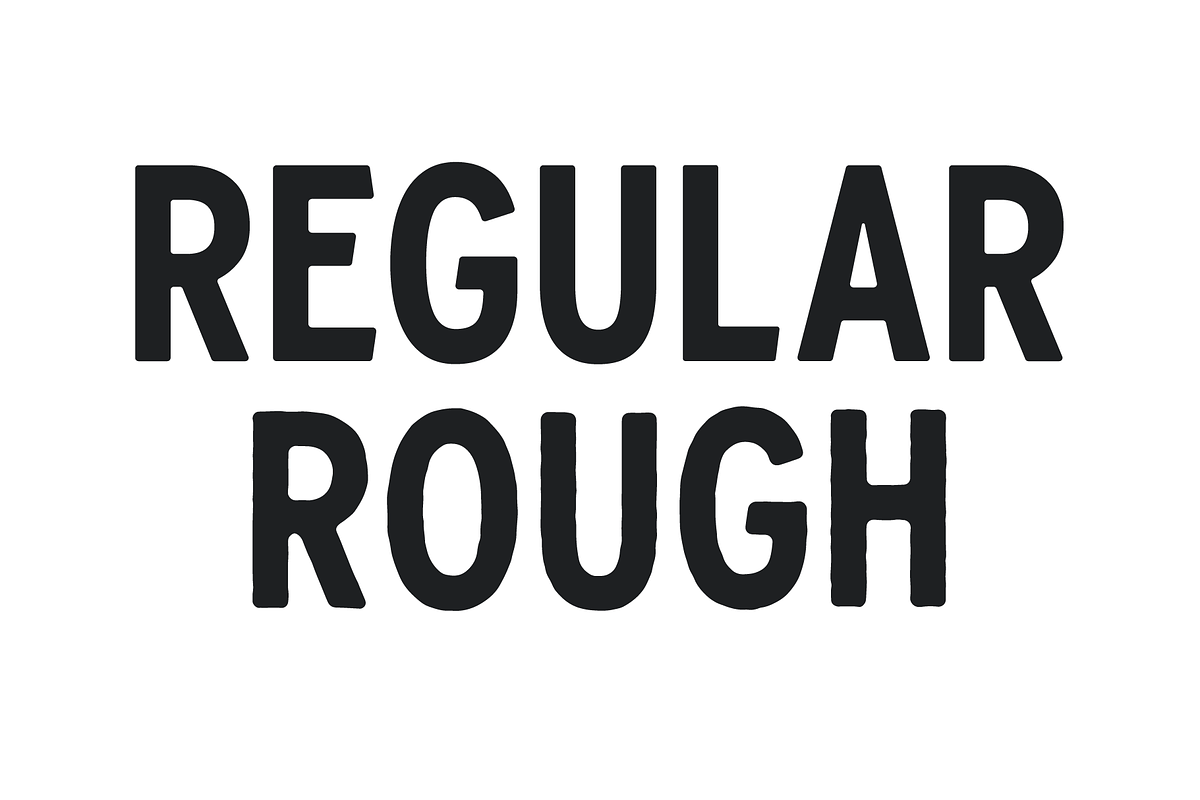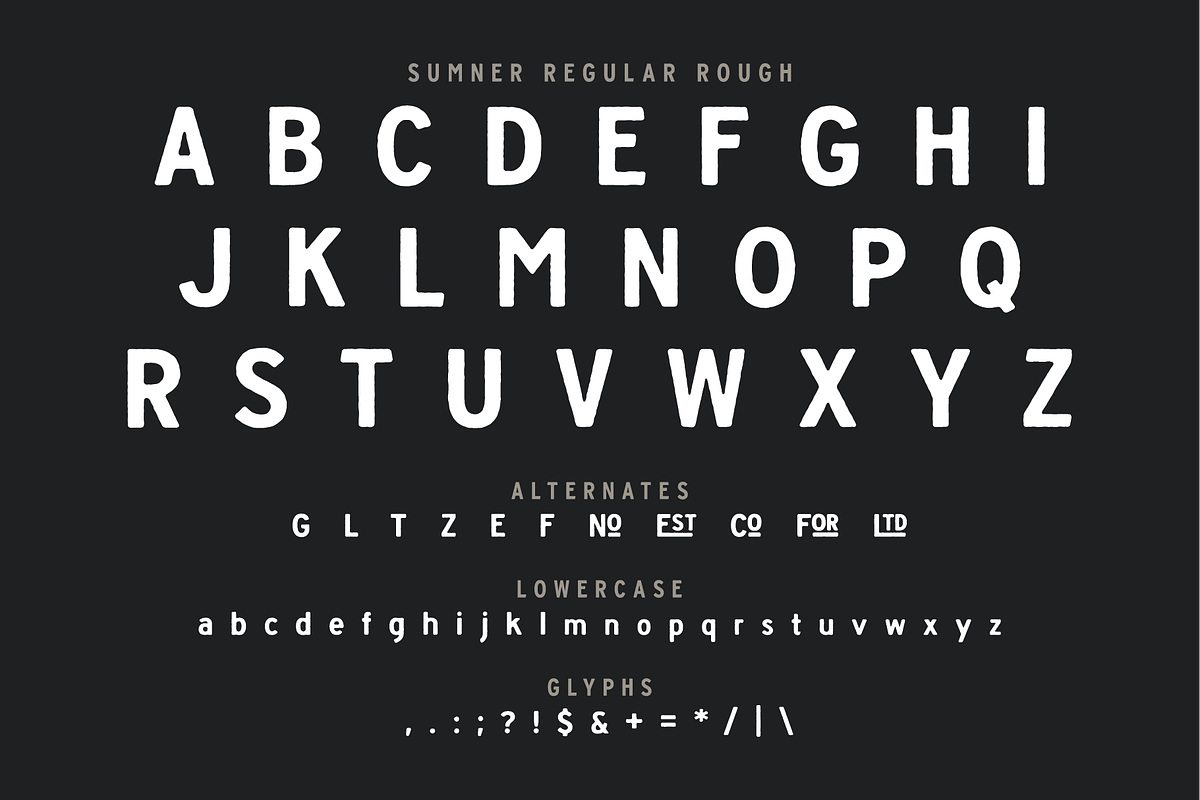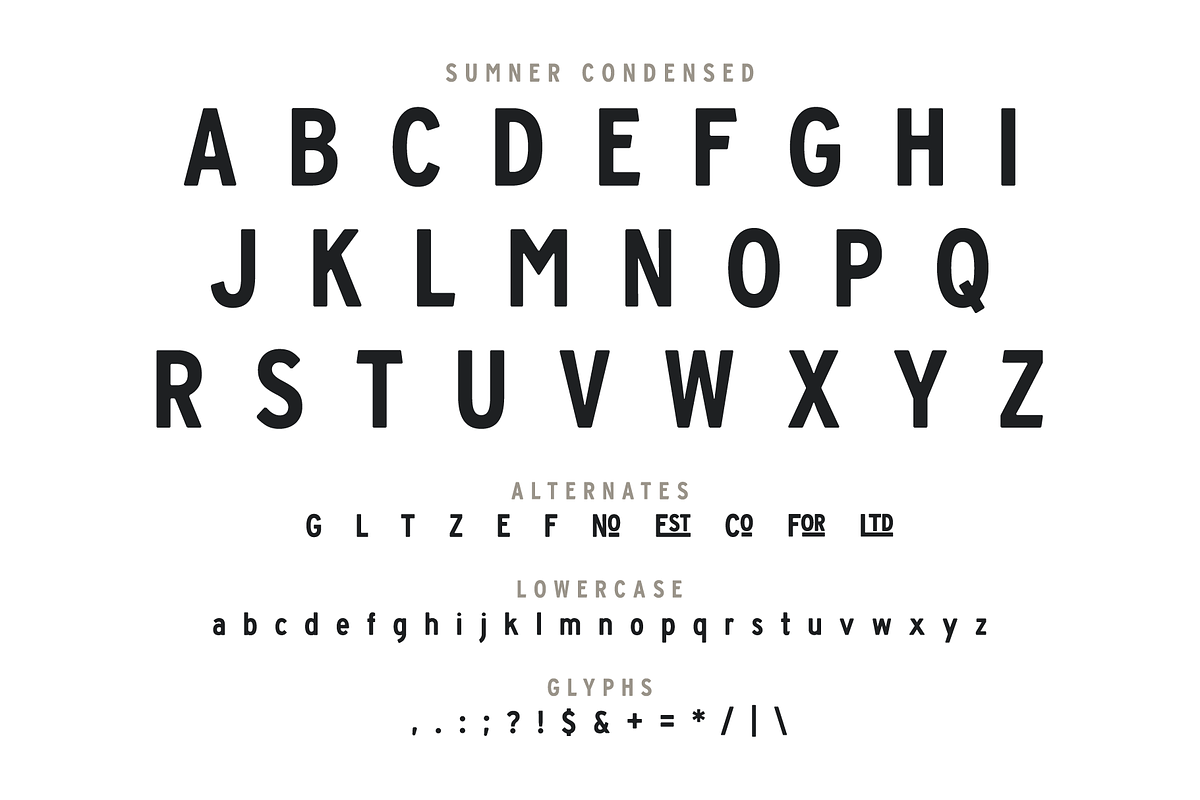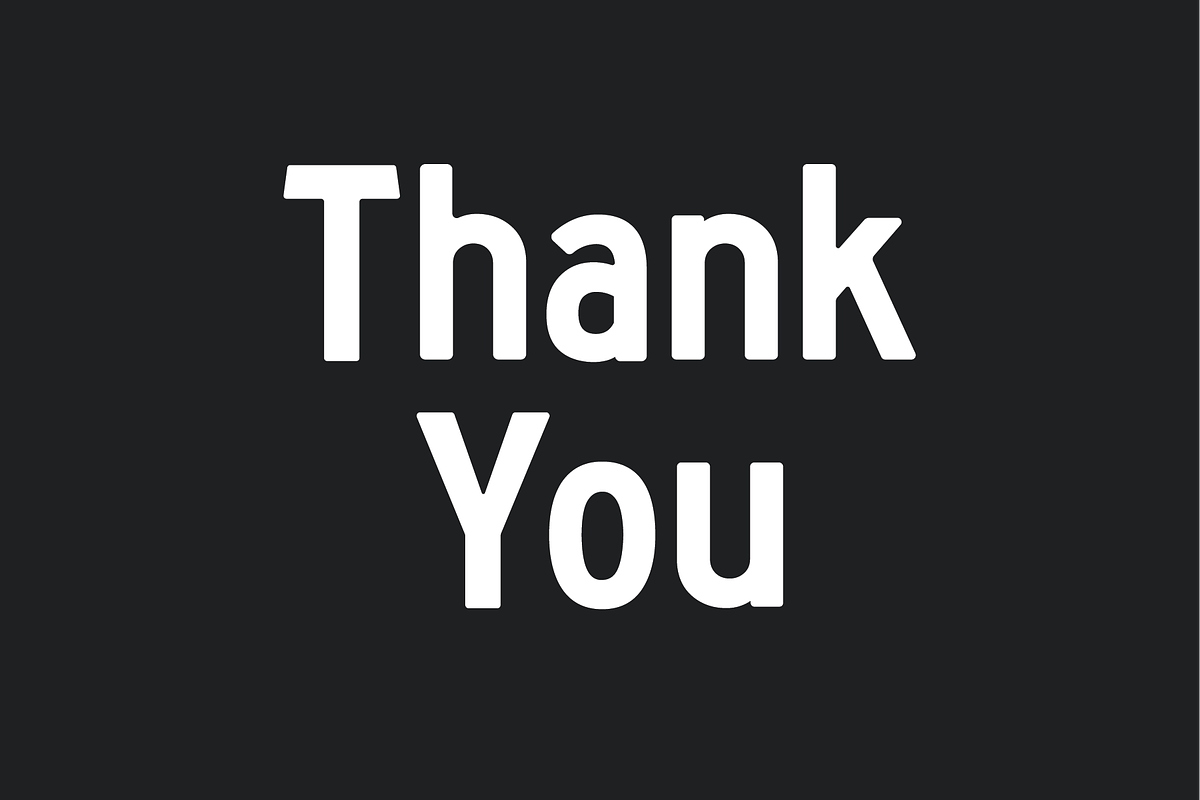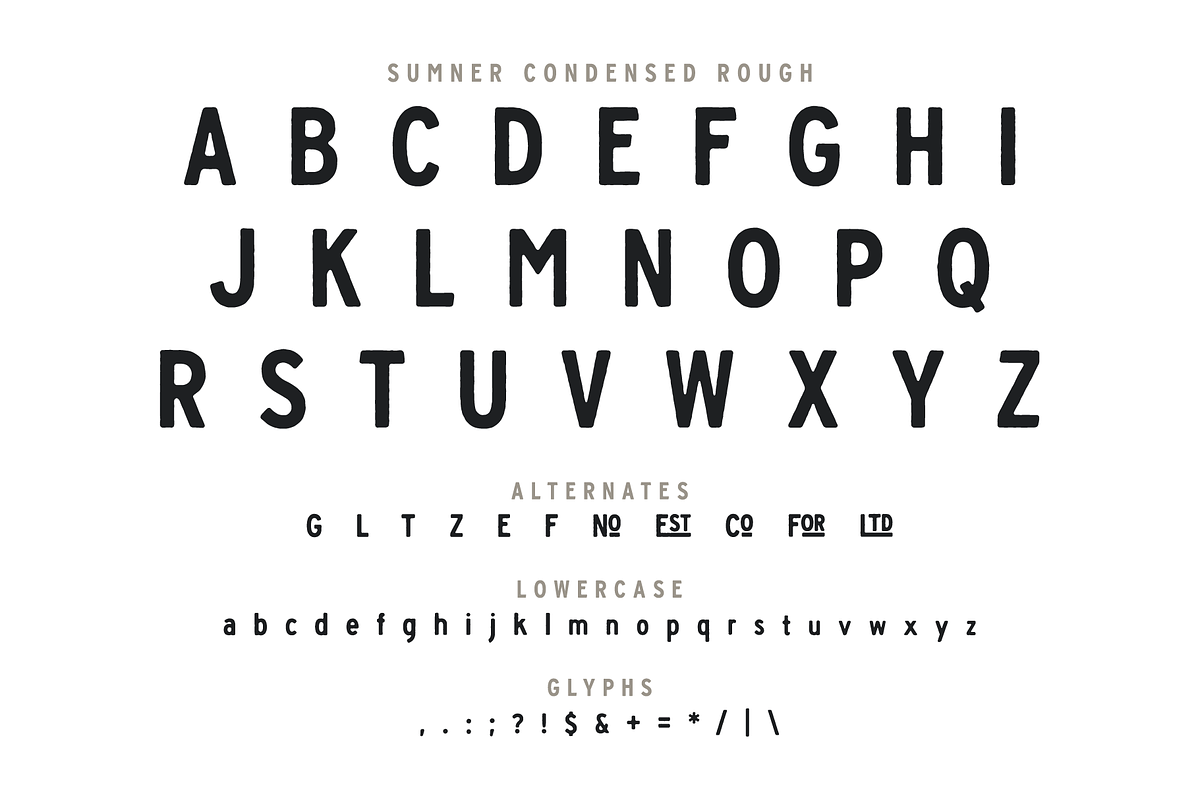
Sumner Typeface
Sumner is a soft edge, san-serif typeface built carefully for you. Delivered with both the Regular and Condensed versions, Sumner is the perfect typeface for any project. From logos and signage, to t-shirts and packaging, Sumner is designed to be easily legible big or small. Also included is a 'Rough' version of both styles for all your vintage/weathered design needs.
Caps, Lowercase, and Numbers
Alternates and specialty glyphs also included
- Also included is a 'Rough' version of both styles for all your vintage/weathered design needs.